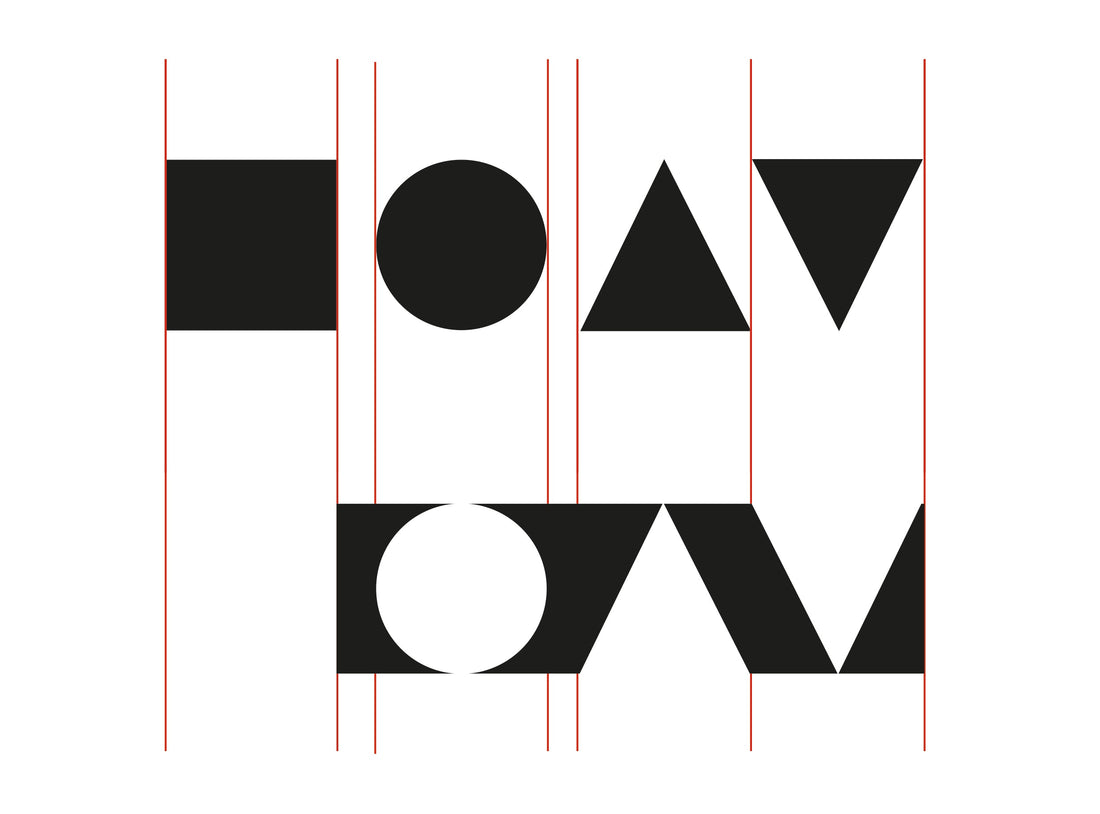
Olcar AlcaideWhen reading a text, letters must be visible yet able to disappear in order to convey content. Readers process blocks of words without paying attention to the individual shapes of letters; the message is constructed in the mind. However, the quality of letterforms and their interaction with space determines legibility and ensures ease of reading.
The perception and memory of a letter do not constitute an isolated process; they are subject to a series of physical and psychological factors, as well as to the image stored in the observer’s memory. Gestalt psychologists pointed out that perception is organized: we do not perceive independent elements in isolation, but rather as interconnected parts in mutual relationship.
The perception of total configuration is the primary aspect of perceptual organization. One part, structured and clearly defined, is called the figure; the other, undifferentiated and peripheral, is perceived in a diffuse manner and is known as the ground.
Figure–Ground Relationship (Form and Counterform)
Any enclosed surface tends to become the figure, while the remaining area functions as the ground; the brain cannot interpret an object simultaneously as both figure and ground. The boundaries between the two spaces belong exclusively to the figure. The figure is generally smaller in size, while the ground is larger and extends behind it. The figure presents greater stability, clarity, and precision; it appears closer to the observer and is more easily remembered.
The following variables may occur within the figure–ground relationship: contrast, fusion, complexity, reversibility, ambiguity, transparency, and transition.
There are also three additional laws of perceptual organization:
- Law of Primacy: the whole is more original and primary and manifests itself before the parts.
- Law of Autonomy: the whole is determined more by internal factors than by external ones.
- Law of Good Form (Law of Prägnanz): perception organizes itself so that figures appear as simple, regular, and symmetrical as possible. This law governs the segregation of objects or figures from the visual field into distinct forms and includes characteristics such as regularity, simplicity, symmetry, and similarity.
The orientation of writing is primarily determined by fundamental axes that define the vertical and horizontal directions of the space it occupies. The elements of a configuration group and organize themselves to form a harmonious whole. The subordination of individual elements to the whole depends on the degree of visual force each letter possesses—whether its forms are strong, stable, or dynamic.
Each letter retains its own internal organization within the whole and exhibits a different degree of subordination. As forms approach one another, the forces of both interact, creating a more complex distribution across their surfaces and the surrounding field.
The number of structural characteristics determines the degree of simplicity. Reducing complexity in writing favors perception and immediacy of recognition; however, attention is focused on understanding the sign within the context of the word as a whole. We do not read letters in isolation, but rather blocks and groups of words. The relationship between letters depends on the structure of the whole. In a harmonious organization, the whole is greater than the sum of its parts, and greater simplicity enhances unity.
In graphic composition, visual weight is determined by the quantity, size, and spatial placement of elements, whereas in typography, weight refers to the thickness of the stroke.